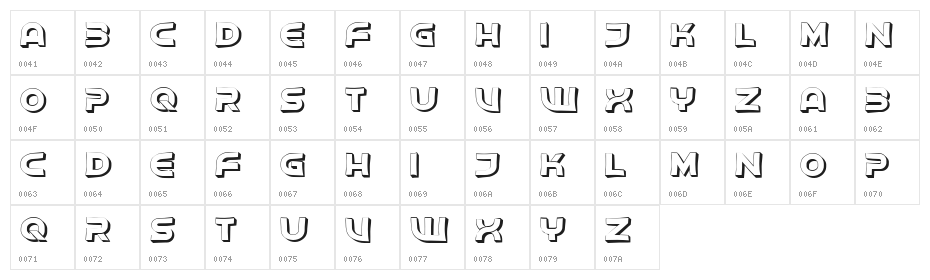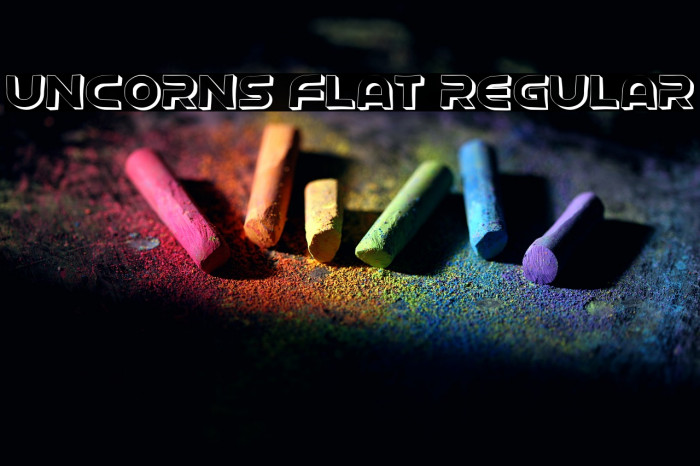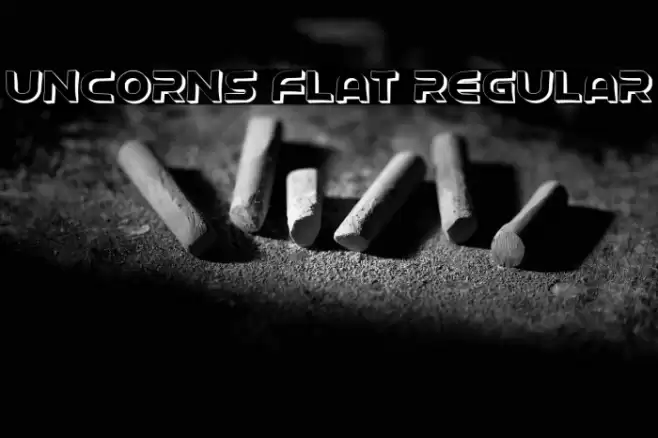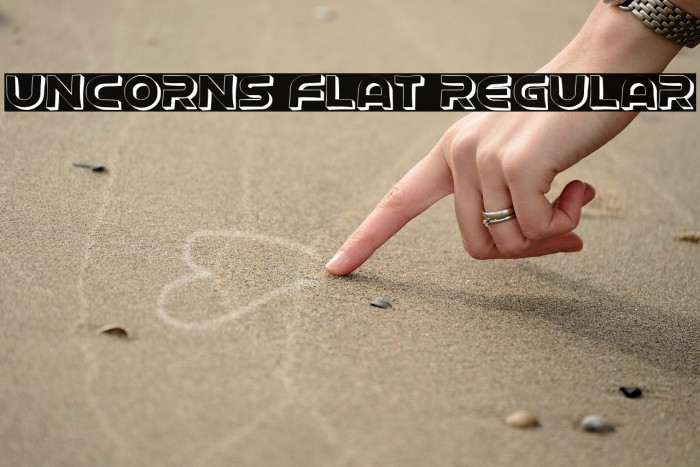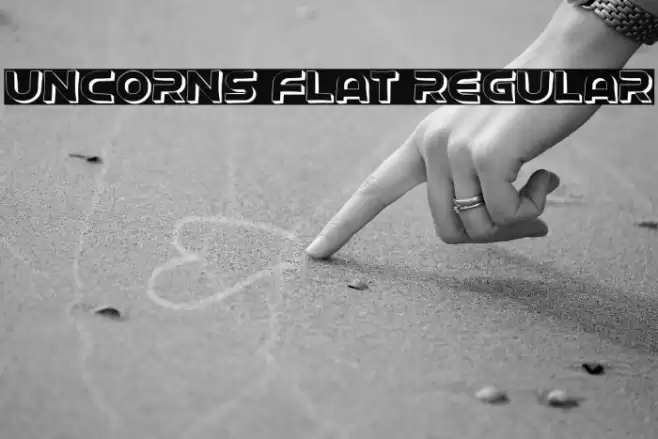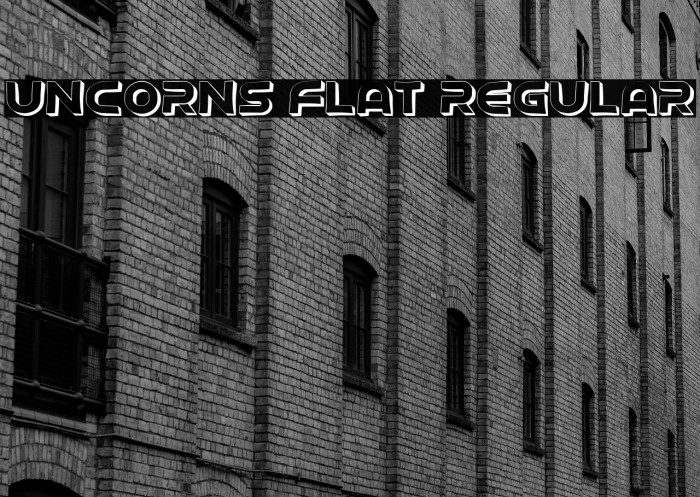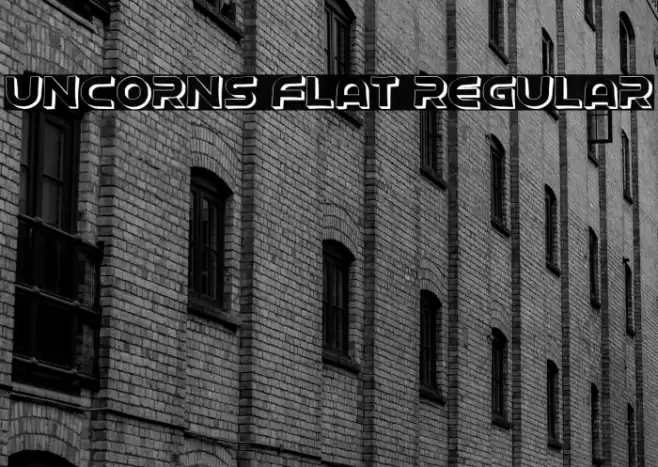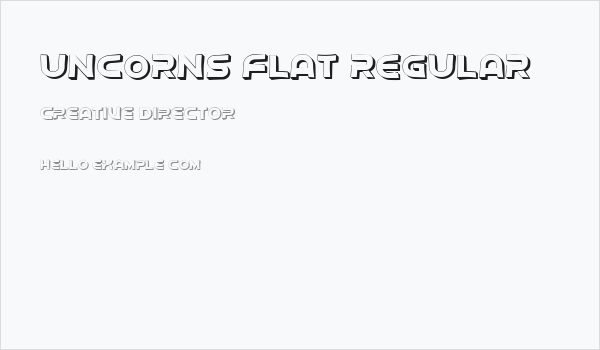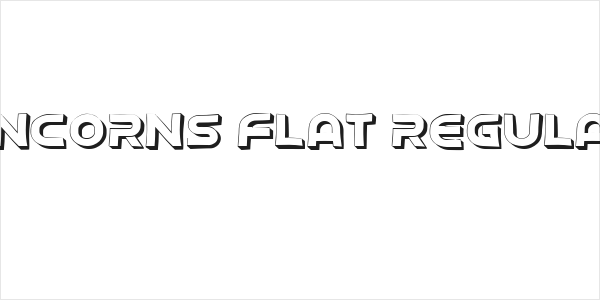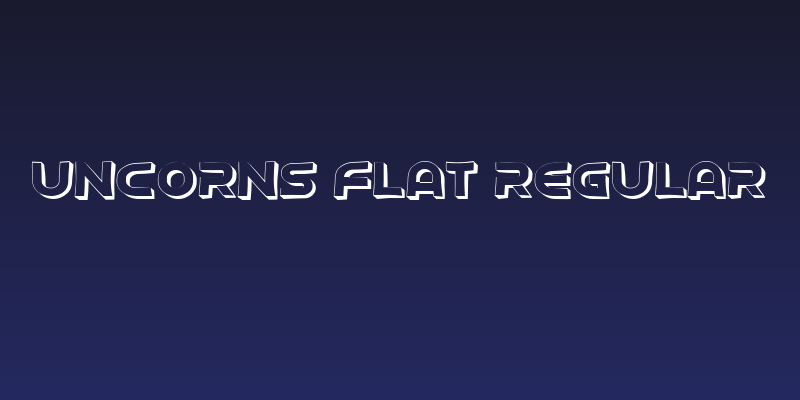
Uncorns Flat Regular Font
Uncorns Flat Regular Description
This font features a bold and dynamic design with a three-dimensional effect that gives each character a sense of depth and movement. The letters are constructed with thick, solid lines and a shadow effect that enhances their bold appearance. The style is modern and eye-catching, making it suitable for projects that require a strong visual impact. The uppercase letters are uniform in height, while the lowercase letters maintain a consistent style, ensuring readability. The numbers and special characters are designed to match the overall aesthetic, providing a cohesive look across all elements.
| Proposed Projects | Ideal for headlines, posters, logos, and branding materials that require a striking and memorable appearance. |